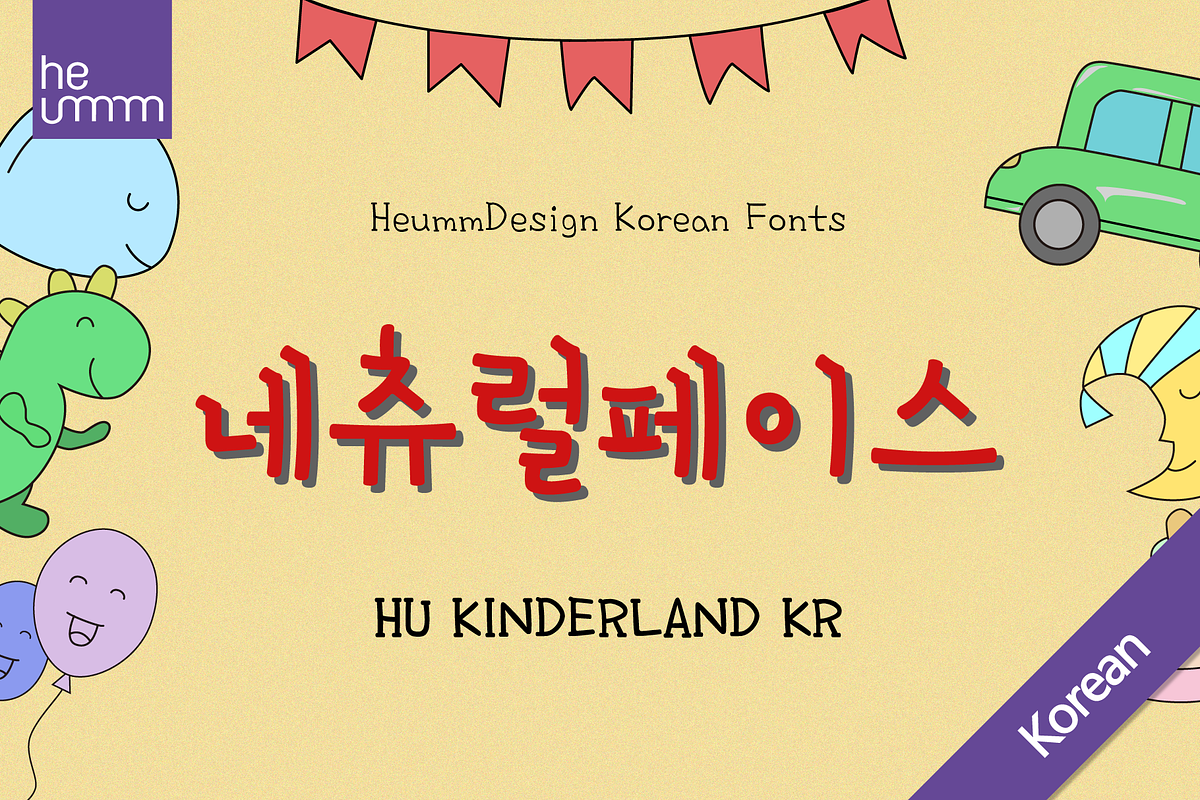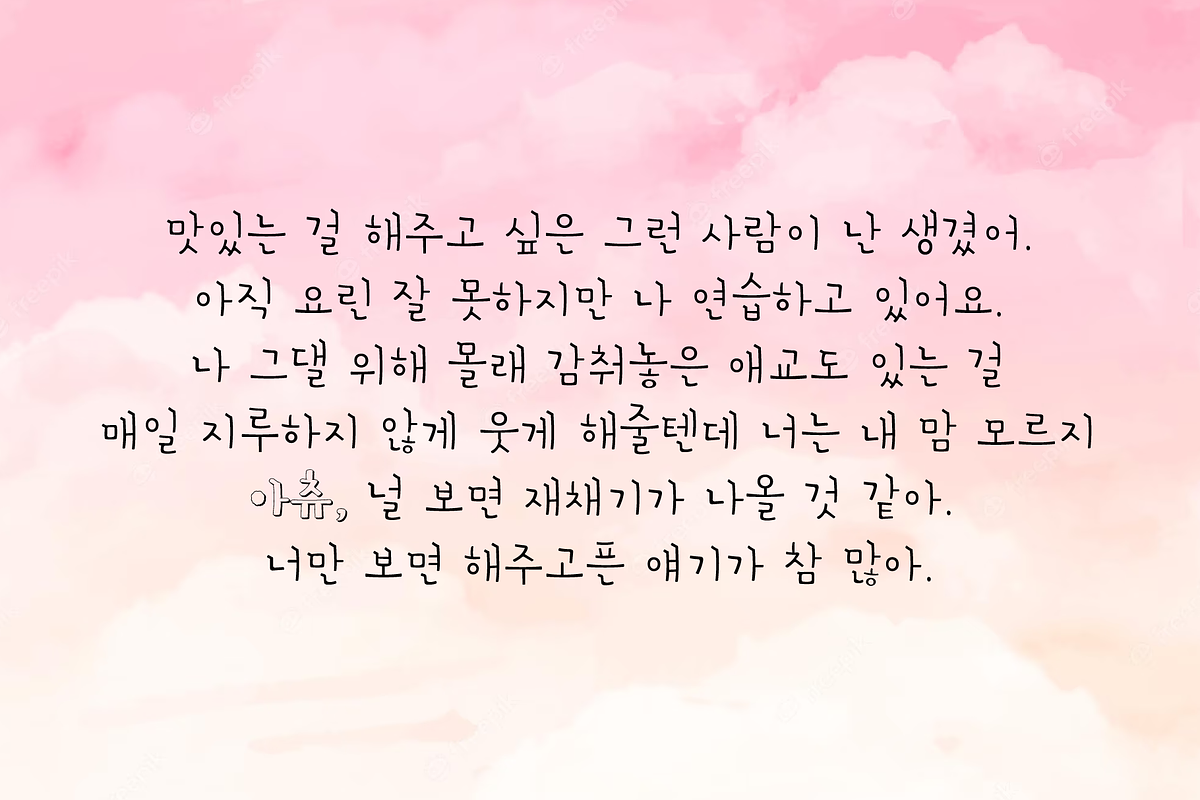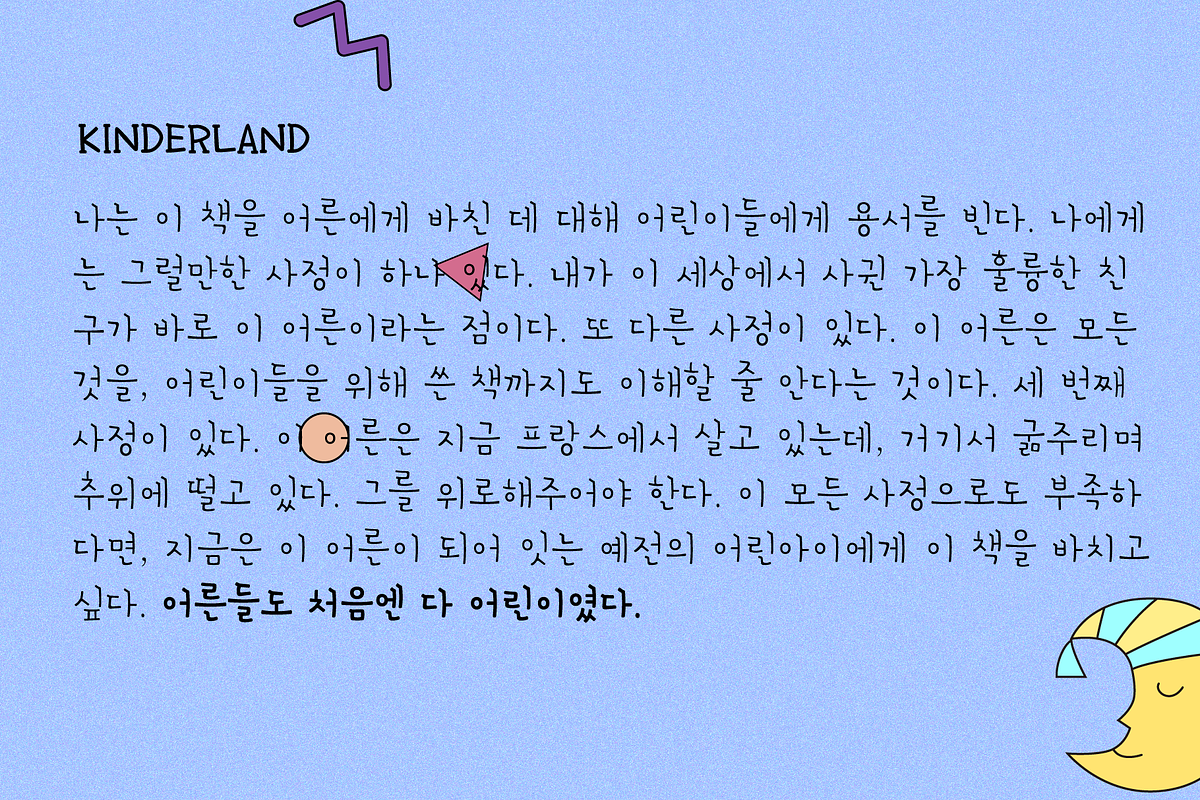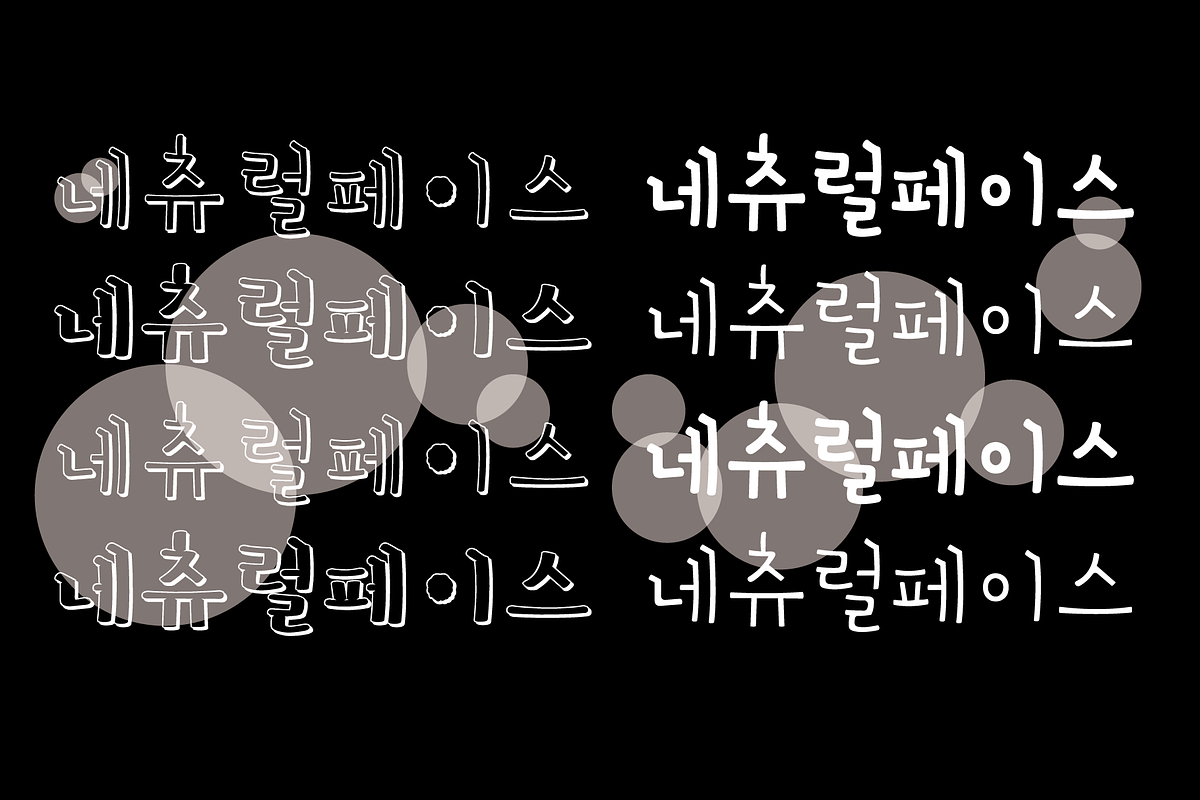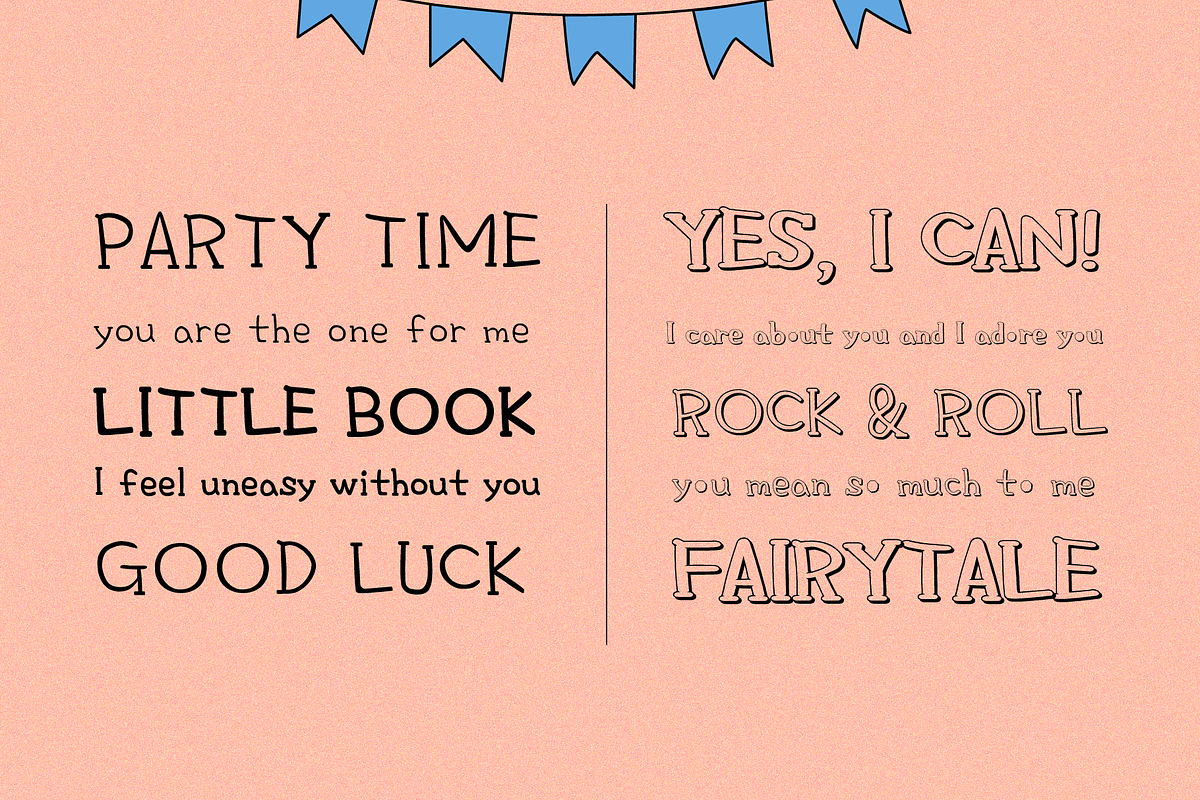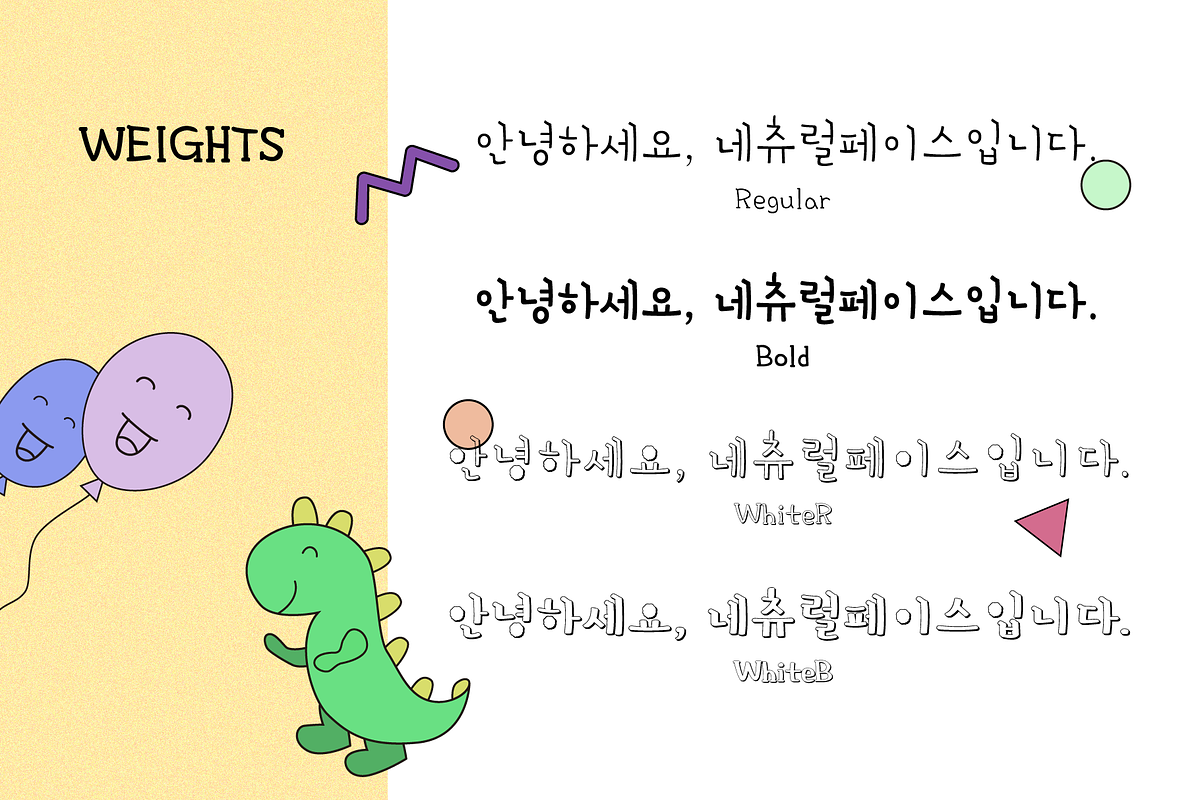
HU Kinderland KR is a neat and friendly handwriting typeface with unadorned innocence.
The tight handwriting gives off a cute atmosphere as if it were written by a young person. In the existing KINDERLAND, only Regular and Bold were introduced, but the Korean version of the font introduces two white weights.
White weight can give a unique feel by saving only the border and not filling the typeface.
This font contains Korean.
There are 4 weights of HU Kinderland KR : Regular, Bold, White Regular, White Bold